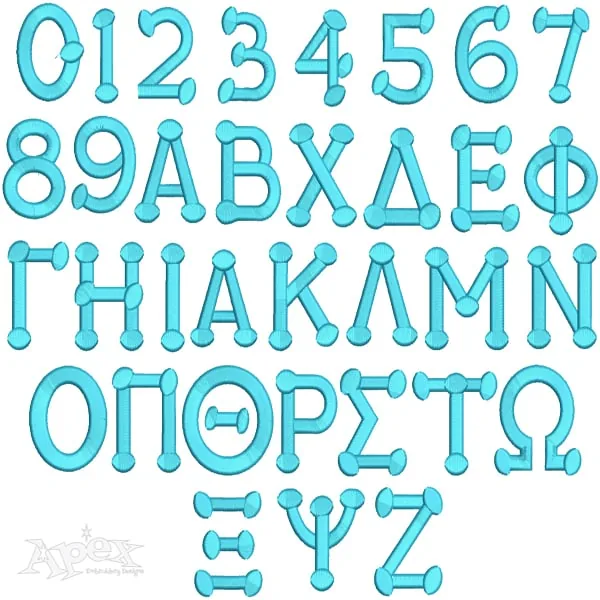
Greek Alphabet Letters Font Dots Applique and Fill
Create Greek Font style personalized gifts and home décor with Retro Polka Dots. Classic Greek sorority or fraternity stylish polka dots embroidery monogram set is perfect for customizing hats, linens, towels, baby gifts, tote bags, and more.
This Greek style with polka dots embroidery font collection includes complete size sets with uppercase monogram letters designed for creating stunning 3-letter monograms. Each font comes professionally digitized for smooth stitching and excellent embroidery results. Apex has digitized machine embroidery fonts for over 25 years.